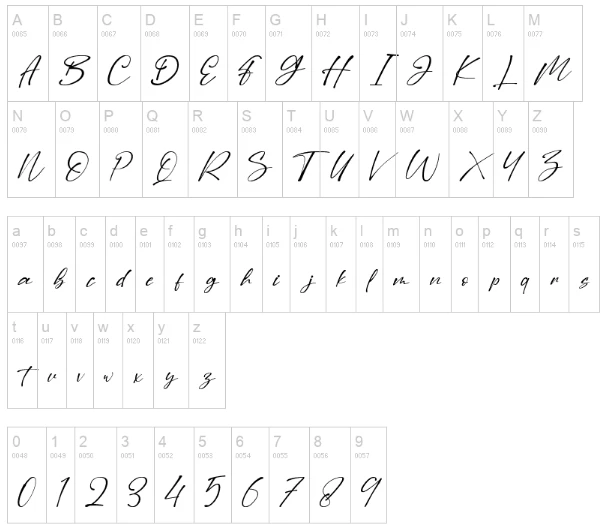
Our modern Dilan Script, a Handwritten and Script Font, is now available. It’s a graceful, flowing script typeface with a delicate, exquisite feel to it. StringLabs produced it and shared it. It has lovely and well-balanced qualities, and as a result, it goes with a wide range of styles. Add it to your most imaginative ideas and see how they come to life! The typeface is available in TTF, OTF, and WOFF formats.
Ligatures, Alternates, Swash, Uppercase and Lowercase characters, Numbering, and Punctuations are just a few of the font’s remarkable characteristics. Multilingual support is also available, which is a requirement for many designers. The typeface may be used on either a PC or a Mac, and it has a simple installation method. This lovely script and handwritten font is compatible with Adobe Illustrator, Photoshop, and InDesign, as well as Microsoft Word. The curves of the script and handwritten go well with almost any artistic endeavor.
The attractive script and Handwritten fonts are ideal for creating stunning backgrounds. The typeface has a warm feel to it, allowing you to use it for any form of aesthetic work. If you’re looking for a font to use to create something vintage, this is the font to use.